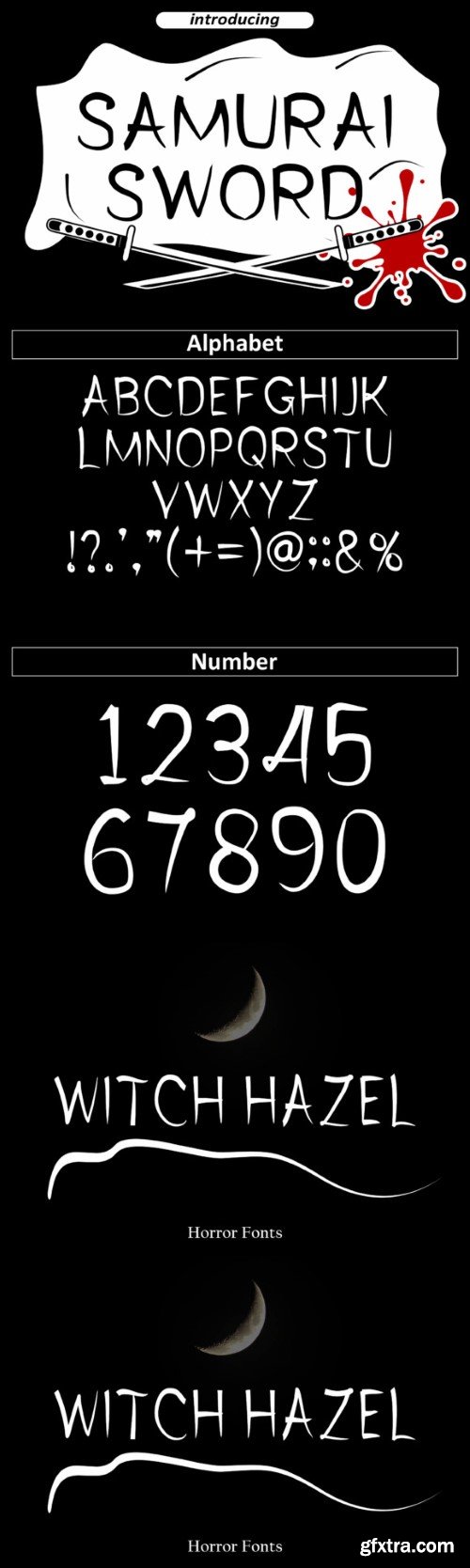
Samurai Font
Samuraisword is a cool and unique display font that wields design with precision and style. Its sharp, dynamic letterforms draw inspiration from the artistry of the samurai. Ideal for projects demanding a bold and distinctive aesthetic, Samuraisword adds a cutting-edge and powerful flair to your creative expressions.